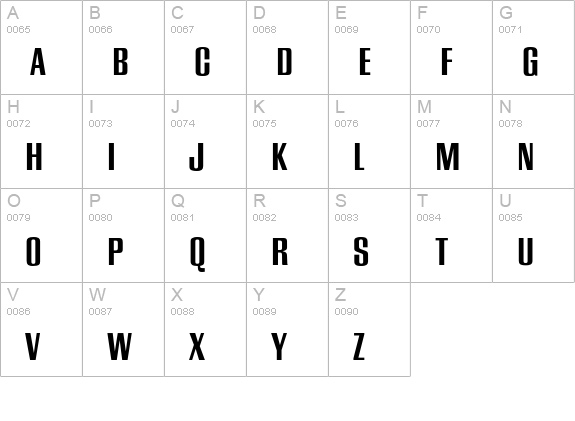
CaliforniaGrotesk-Bold Font Details
CaliforniaGrotesk-Bold is a strong, high-contrast variant in the CaliforniaGrotesk typeface family \xE2\x80\x94 well suited to headlines, attention-grabbing titles, and strong calls-to-action.
CaliforniaGrotesk-Bold is a bold and eye-catching font that exudes modernity and sophistication. Its clean lines and sleek design make it perfect for a wide range of projects, from branding to editorial design. This versatile typeface is ideal for creating impactful headlines and attention-grabbing text. What sets CaliforniaGrotesk-Bold apart is not just its striking appearance, but also the fact that it is available for free. Yes, you read that right - this high-quality font can be downloaded for free at FontsMarket.com. Whether you're a seasoned designer looking to add a new font to your collection or a beginner exploring typography for the first time, CaliforniaGrotesk-Bold is a valuable addition that won't cost you a penny. Don't miss out on the opportunity to enhance your designs with this beautiful and versatile font. Download CaliforniaGrotesk-Bold today and see the difference it can make in your projects.